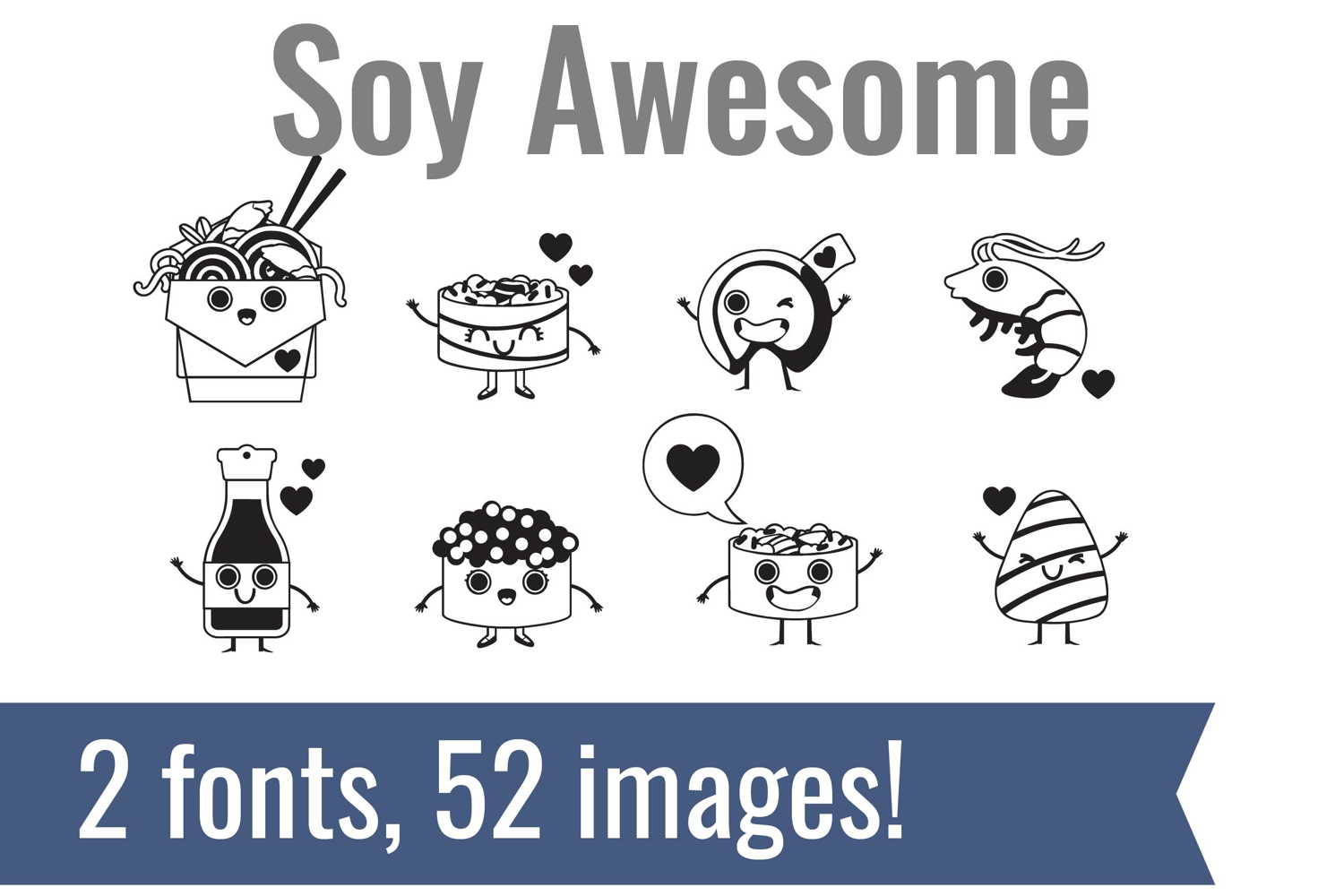
Soy Awesome Dingbats
Unlock endless creativity with two perfectly coordinated fonts! There are two dingbat fonts in this bundle, featuring the cutest Japanese, kawaii-style food, sushi, and Valentine puns.